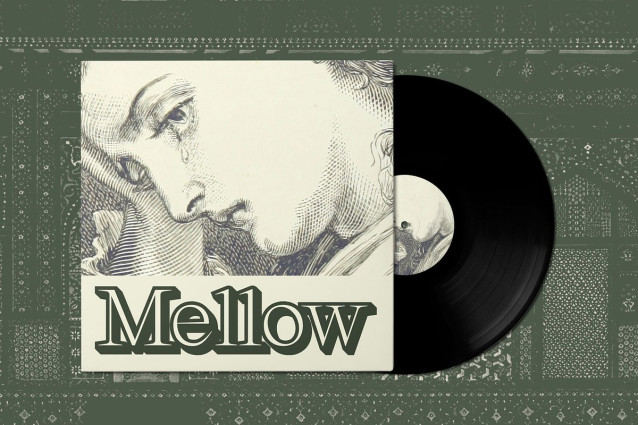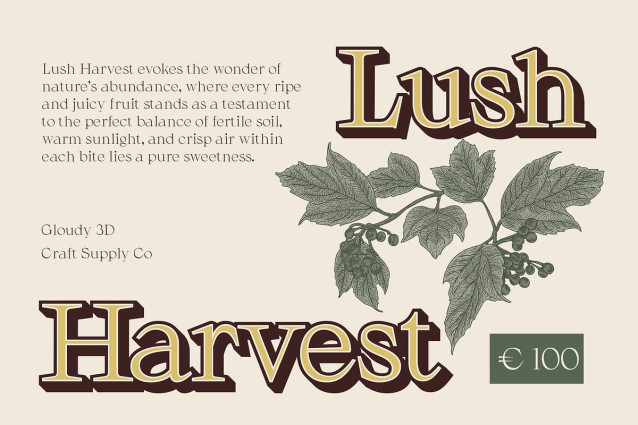
Gloudy 3D Font
Gloudy 3D Font is a modern serif font that embodies clean lines, balanced proportions, and timeless elegance. Its sophisticated and minimalist design delivers a sense of luxury and exclusivity, making it perfect for premium branding, high-end editorials, and stylish packaging.
Subtle 3D Effect for Added Depth and Impact What sets Gloudy 3D apart is its delicate yet striking 3D effect, which enhances the letterforms with a sense of depth and refinement. This effect gives typography a polished and dimensional look, making text appear more engaging and visually appealing across various mediums.
Perfect for Luxury Branding and Editorial Excellence With its elegant and modern aesthetic, Gloudy 3D is ideal for luxury branding, fashion editorials, magazine covers, and premium product packaging. Whether used for logos, headlines, or promotional materials, it ensures a sophisticated and timeless visual presence.
Versatile for High-End Design Applications Designed for those who seek a harmonious blend of modernity and classic sophistication, Gloudy 3D adapts beautifully to both print and digital formats. Its graceful letterforms and subtle 3D detail create an effortlessly stylish impact, making it a go-to choice for designers aiming to craft elegant and compelling visual narratives.